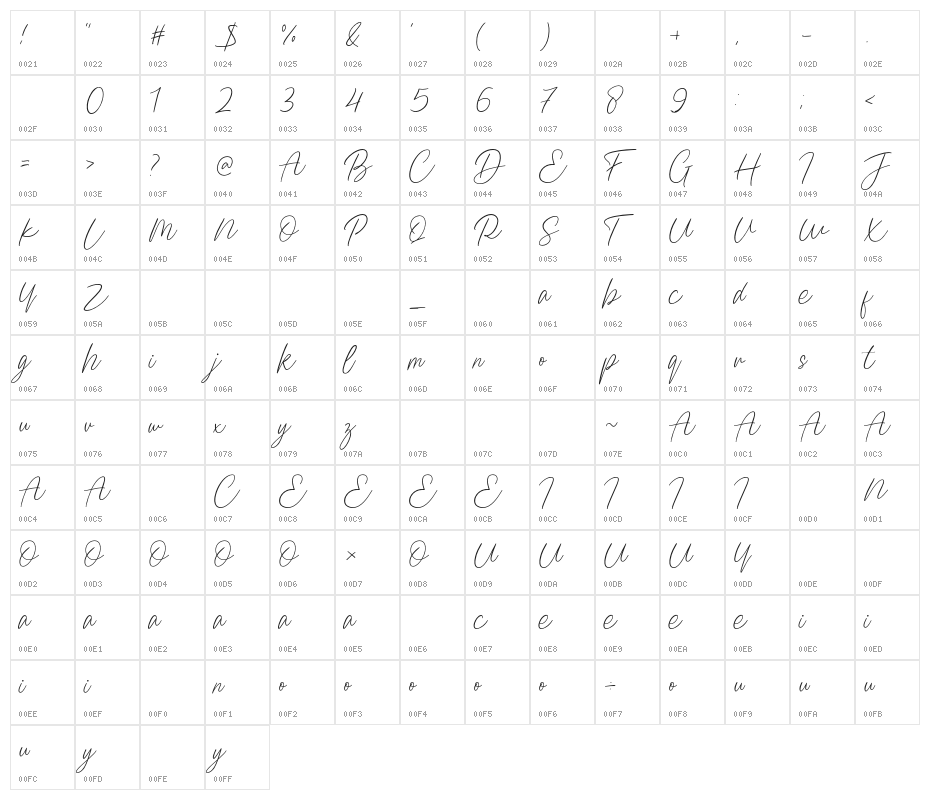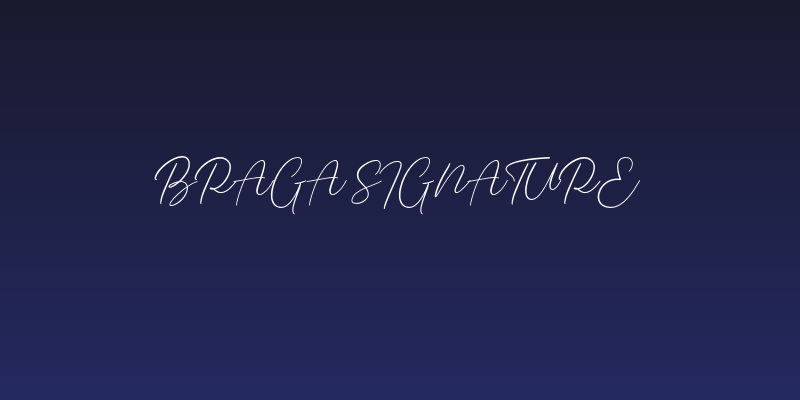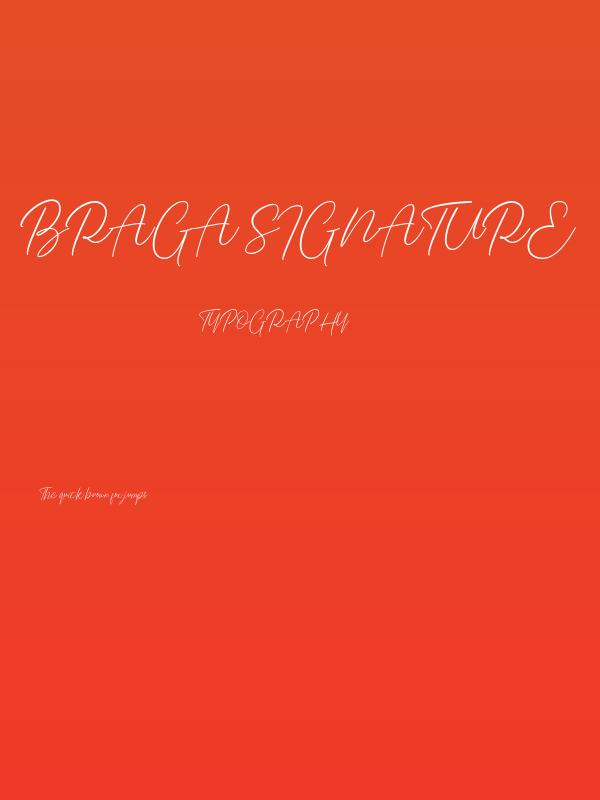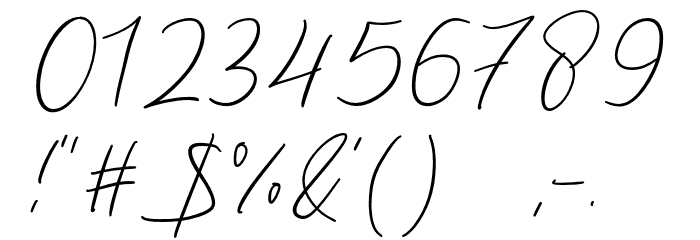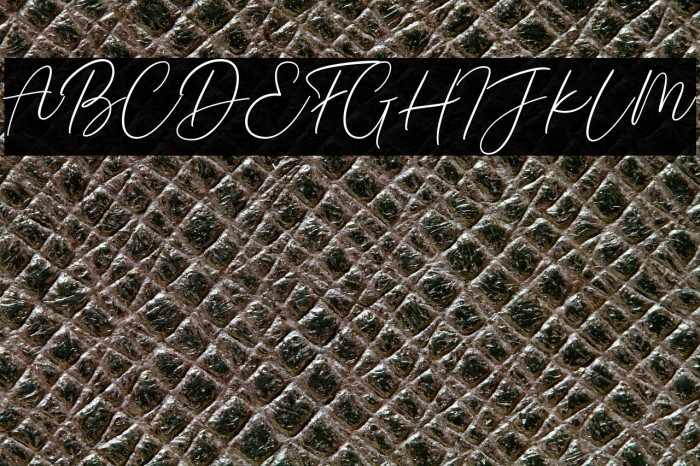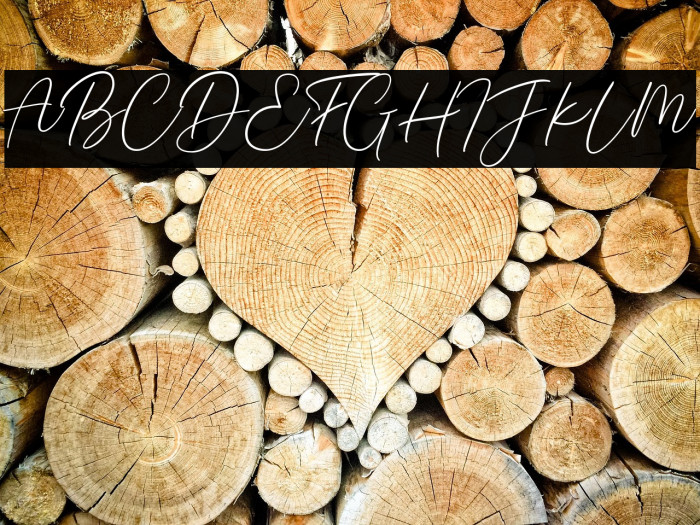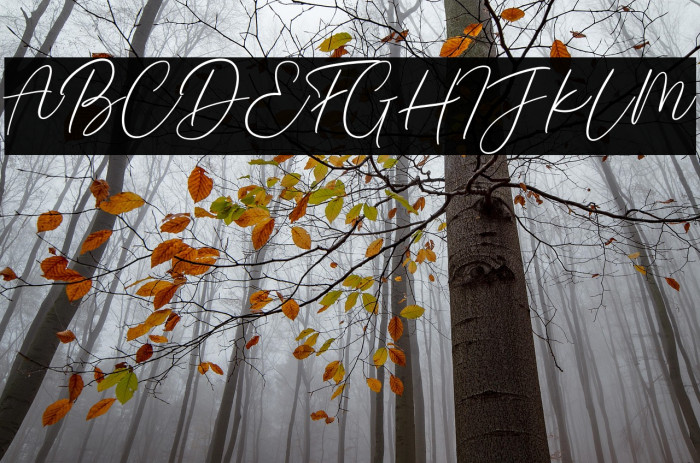
Braga Signature Font
Braga Signature Description
This elegant script font features a flowing, cursive style that mimics natural handwriting. The letters are connected with smooth, sweeping strokes, giving it a sophisticated and graceful appearance. The uppercase letters are slightly larger and more ornate, while the lowercase letters maintain a consistent flow. The numerals and special characters are designed to complement the overall style, maintaining the same fluidity and elegance. This font is perfect for projects that require a personal touch, such as invitations, greeting cards, or branding materials.
| Overall Style | Elegant, Handwritten |
| Use Case | Logos, Invitations, Personal Branding |
| Proposed Projects | Ideal for wedding invitations, personal branding, greeting cards, and elegant packaging designs. |